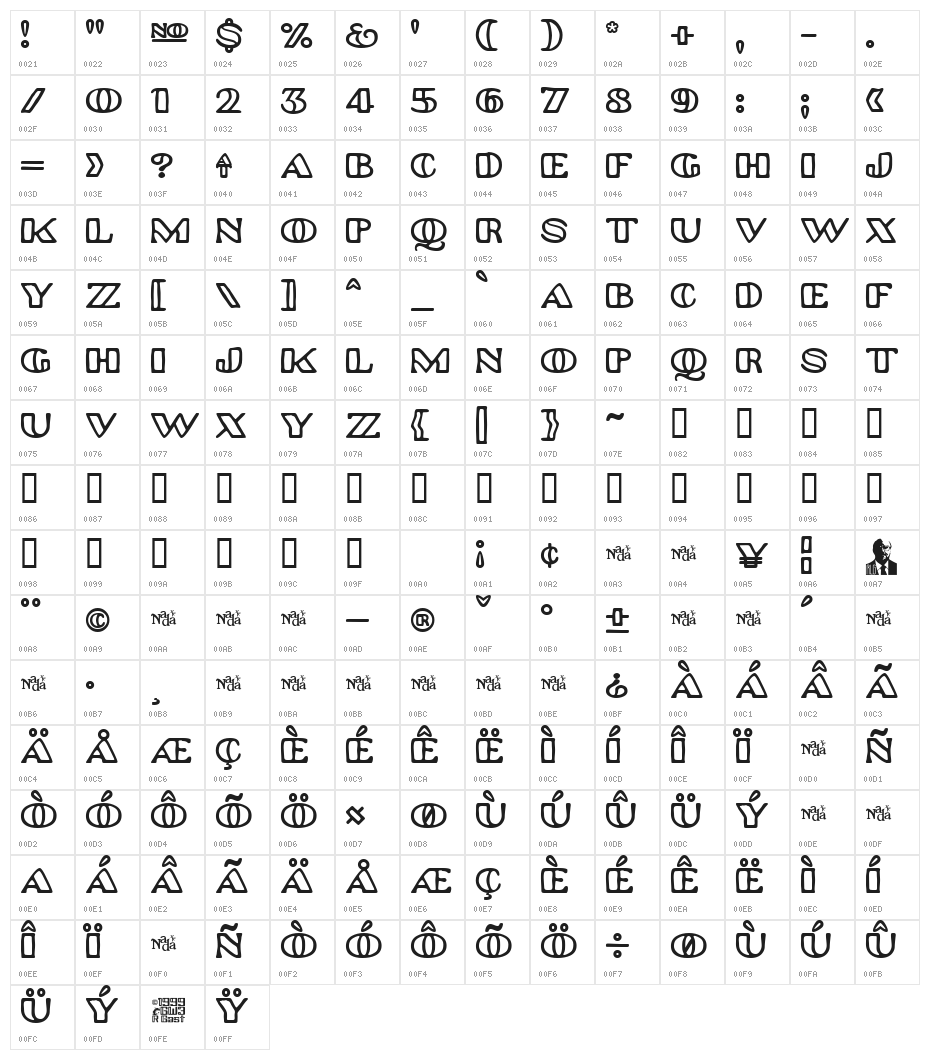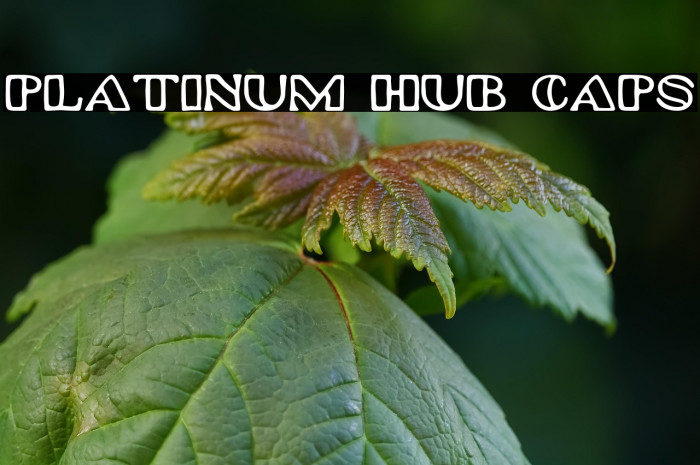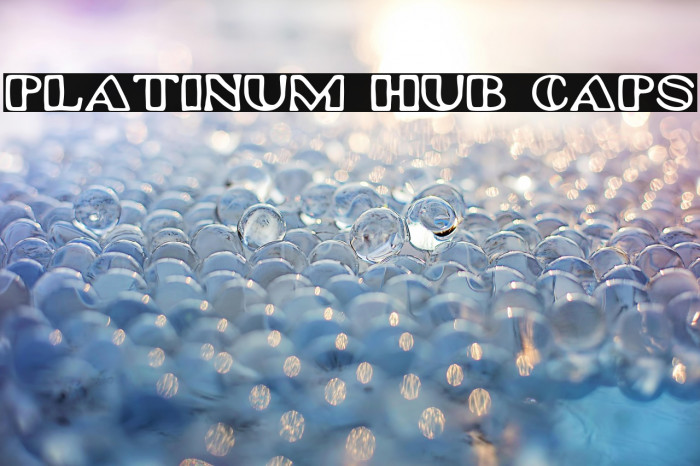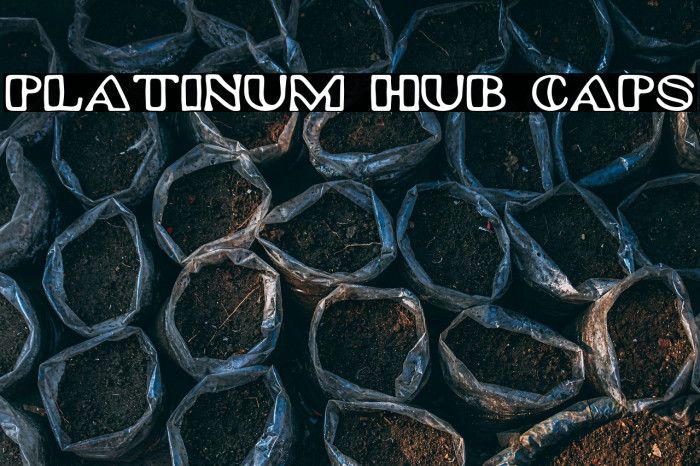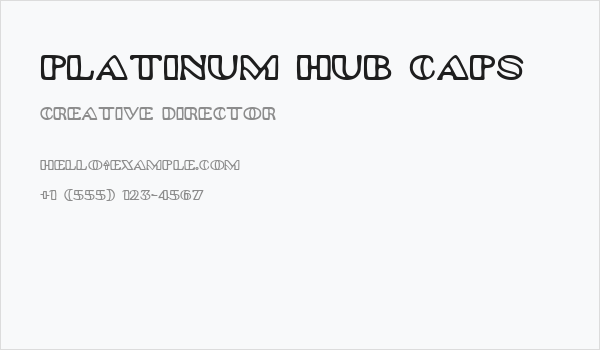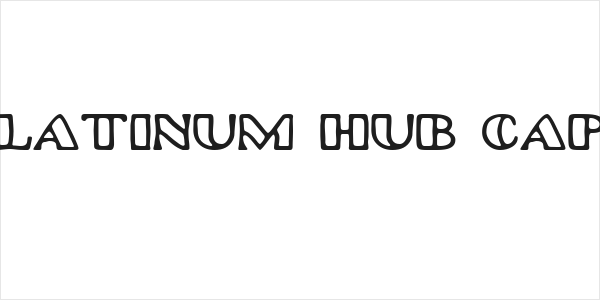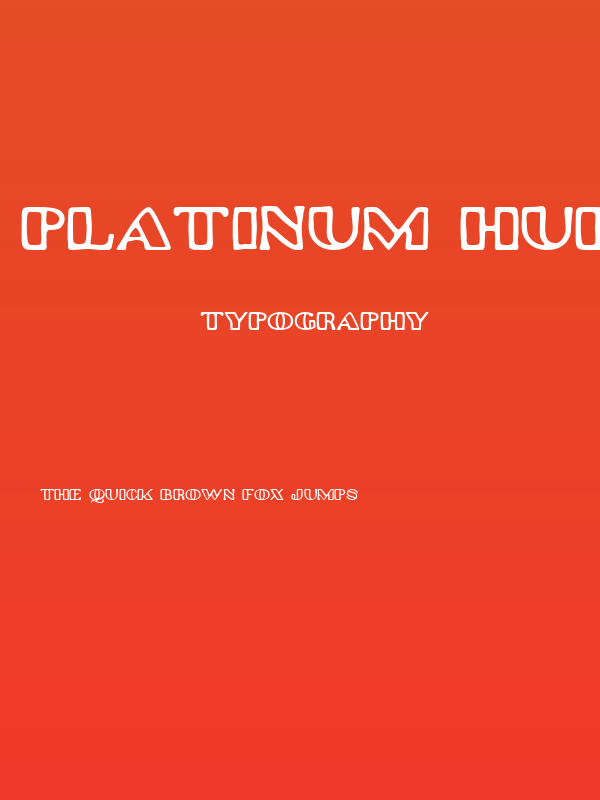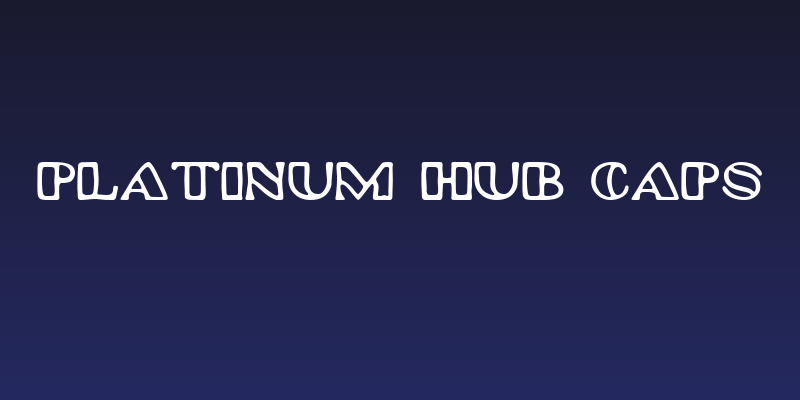
Platinum Hub Caps Font
Platinum Hub Caps Description
This font features a bold and decorative style with a unique blend of geometric and retro elements. The uppercase letters are characterized by thick, rounded strokes and a playful, almost whimsical design. The lowercase letters maintain the same boldness, offering a consistent look throughout. Numbers are equally bold and rounded, ensuring readability while maintaining the font's distinctive style. Special characters and punctuation are designed to match the overall aesthetic, providing a cohesive appearance. The font's design is both eye-catching and versatile, making it suitable for a variety of creative projects.
| Overall Style | Retro, Decorative |
| Proposed Projects | Ideal for branding, posters, headlines, and creative design projects that require a bold and distinctive look. |